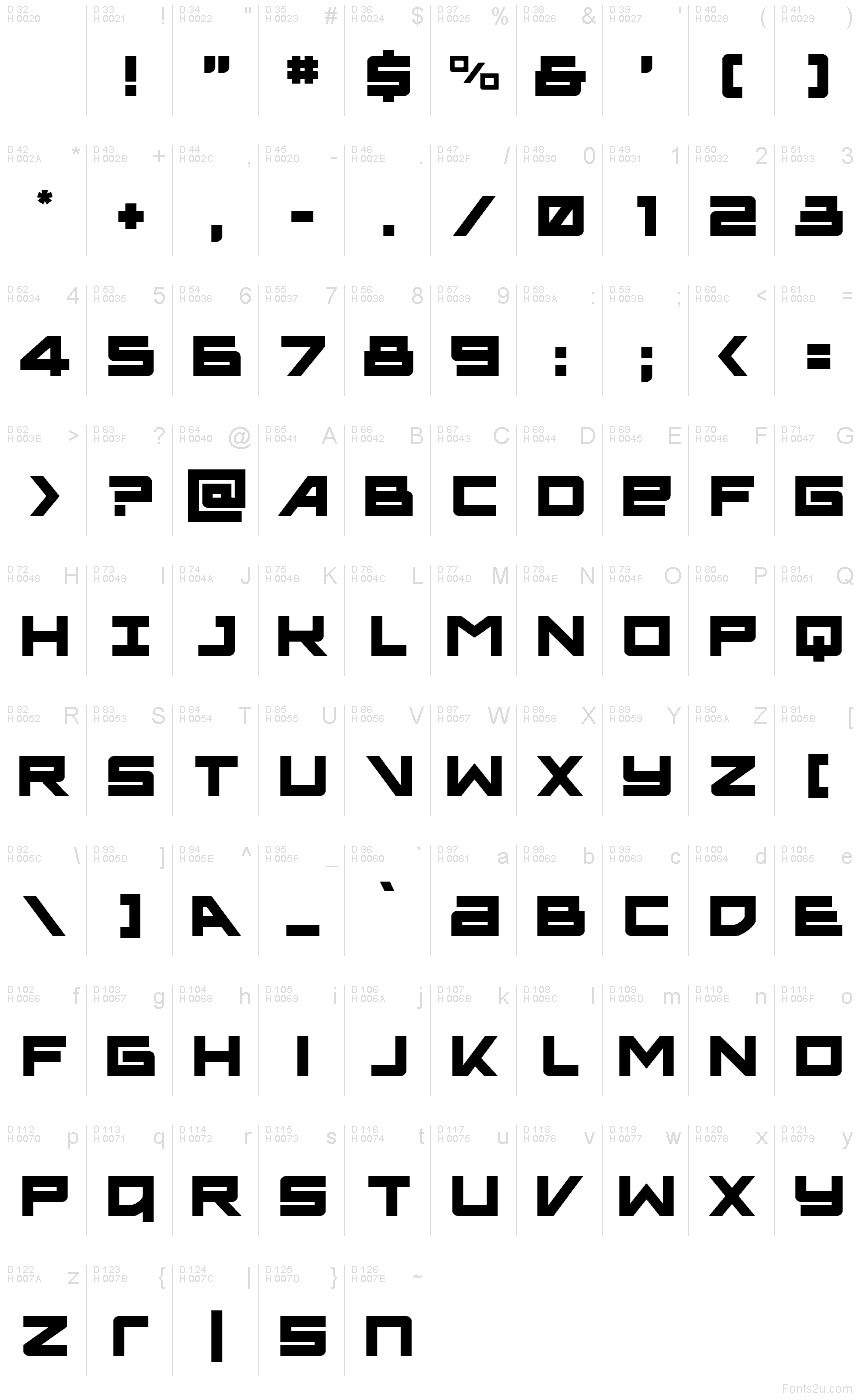
Ace of Swords Spaced
Ace of Swords Spaced font by Iconian Fonts is a free techno display typeface. It solves a classic futuristic-type problem: style versus clarity. The angular cuts, beveled corners, and sliced strokes bring the sci‑fi grit, while the generous built‑in spacing keeps words readable at a glance. You get that armored, modular look without the cramped feel, so headlines hit hard and still scan fast.
Using Ace of Swords Spaced, your work shines on esports branding, sci‑fi posters, gaming UIs, tech event flyers, stream overlays, and gadget packaging. This free font carries a steady rhythm that stacks cleanly in all caps and short phrases. Pair its bold titles with a simple neo‑grotesque or the Ace of Swords family for body and subheads, and consider slightly tighter tracking at jumbo sizes.